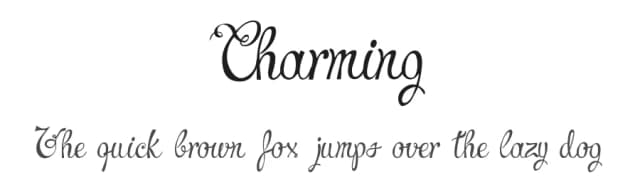
About Carmelio Font
Carmelio Specifications
| Font Family | Carmelio |
| Full Name | Carmelio |
| Glyph Count | 306 glyphs |
| PostScript Name | Carmelio |
| Designer | Raditya Putra Pratama - Raditya Type Studio |
Carmelio supports 213 languages.
Carmelio Font is a script font that shines as a display or heading face. Pair it with a clean sans-serif or serif font for body text β the contrast creates a clear hierarchy while the two styles stay balanced and easy to read.
Carmelio Font
by RT Studio